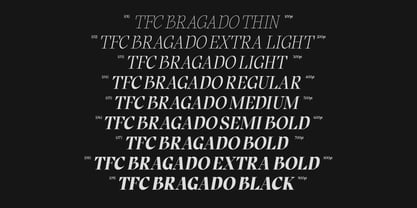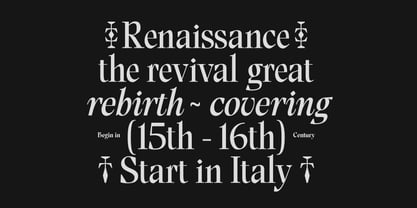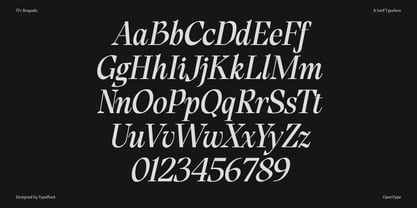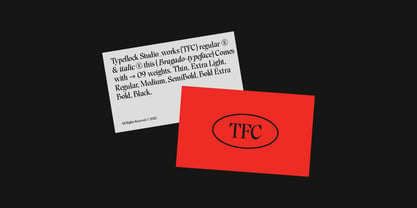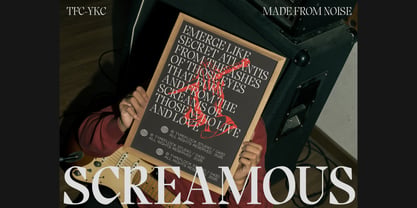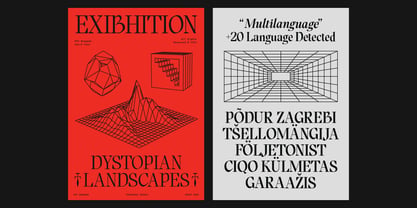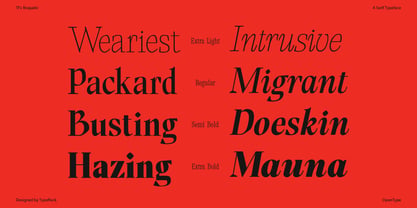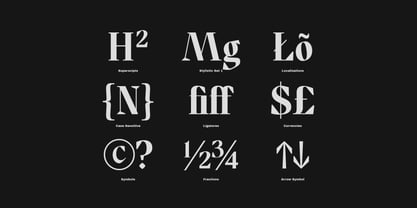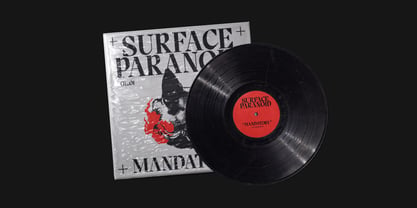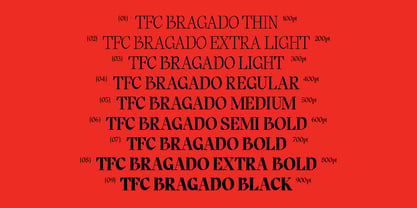
TF Bragado
by TypeFlock
The TF Bragado Font Family was designed by Faisal Tanjung and published by TypeFlock. TF Bragado contains 18 styles and family package options. More about this family
TFC Bragado — Classical Poise, Editorial Edge
TFC Bragado is a sophisticated serif font family by Typeflock Studio, made for work that calls for historical authority and a precise high-fashion aesthetic. It bridges 15th-century classical elegance with 21st-century sharp modernism, giving designers a voice that feels learned, refined, and visually assertive.
The family uses a striking high-contrast architecture, with bold stems set against delicate, razor-sharp serifs. TFC Bragado suits scholarly and traditional compositions as well as sleek editorial layouts, making it a strong choice for typography that needs presence, clarity, and a distinct sense of taste.
Designers: Faisal Tanjung
Foundry: TypeFlock